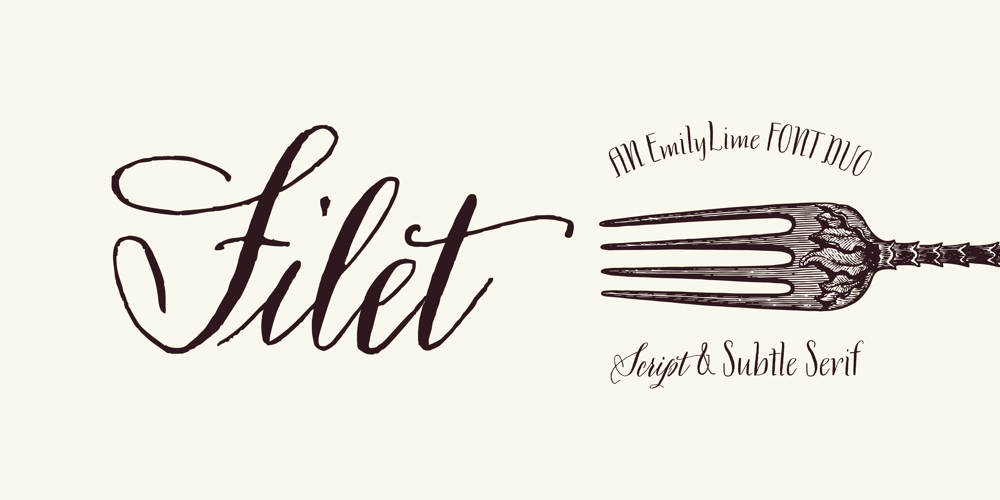
Filet
Filet font
Filet Font Family was designed by Emily Conners and published by Emily Lime. Filet contains 2 styles and family package options. This font is big on 2 things: Class & Quirk. Inspired by hand-scripted menus. This modern hand-calligraphy font isn’t just for one or two-word logos. Designed to make a statement when used in large amounts. Great in large & small doses alike. Slightly irregular texture for that perfect hand-lettering touch on the page. Beautiful Duo for your next event or project! Multilingual support.